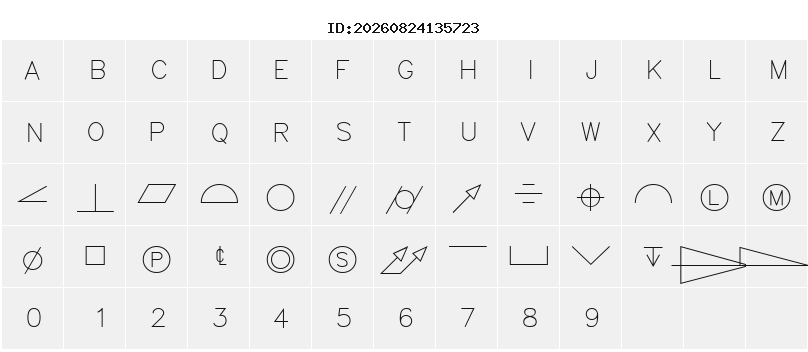
SWGDT Preview
• Font Name: SWGDT
• Full Font Name: SWGDT
About SWGDT.ttf
SWGDT.ttf is a modern, elegant sans-serif font designed for ultimate readability and visual harmony. Perfect for branding, headlines, web design, and print materials.